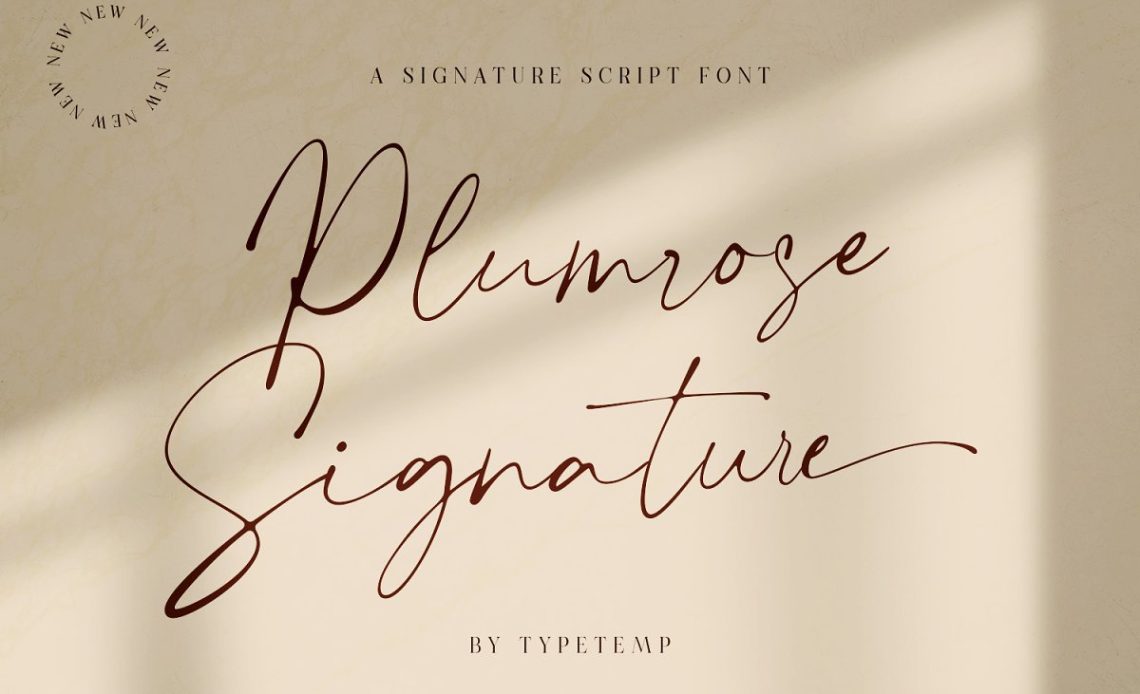
Introducing Plumrose Signature Script Font - the ultimate script font for your dream wedding monogram! This font is designed by the talented Egi Ahmad Mufid and it's the perfect choice for anyone looking for a font that is elegant, chic and visually stunning.
Plumrose Signature Script Font is packed with amazing features that will make your projects stand out from the crowd. With its alternatives, ligatures, and multilingual support, this font is perfect for editorial projects, branding, weddings, social media, product design, stationery, advertising, and other romantic projects.
The font comes with uppercase and lowercase letters, as well as numerals and punctuation. It's also PUA encoded and includes a web font, making it easy to use in your digital projects.
With Plumrose Signature Script Font, you can add a touch of class and sophistication to any design. Use it as a stylish text overlay on any background image, or create stunning wedding invitations that will leave a lasting impression on your guests.